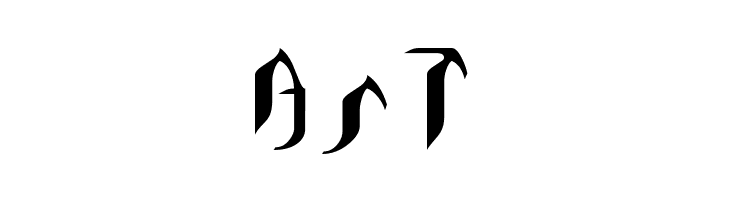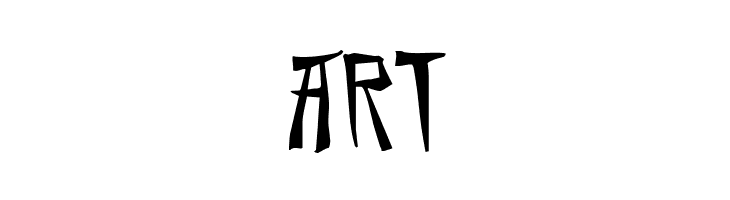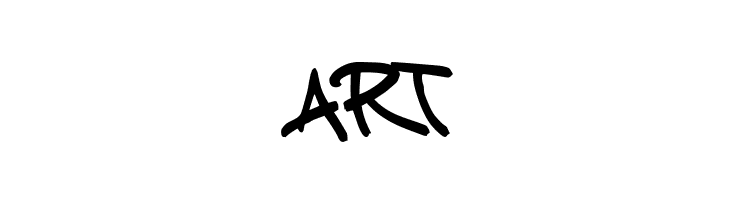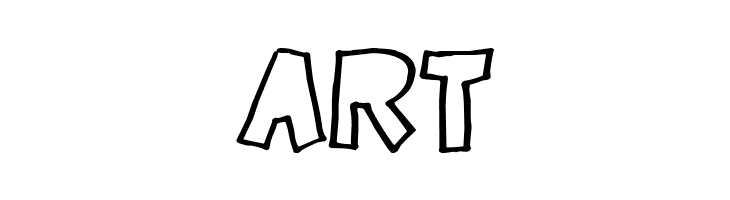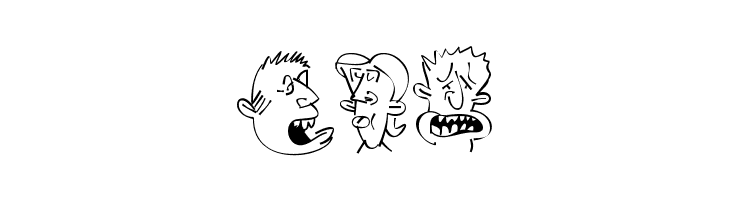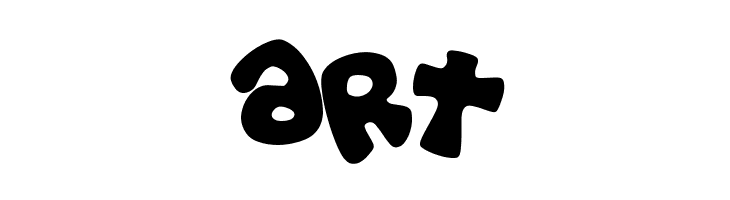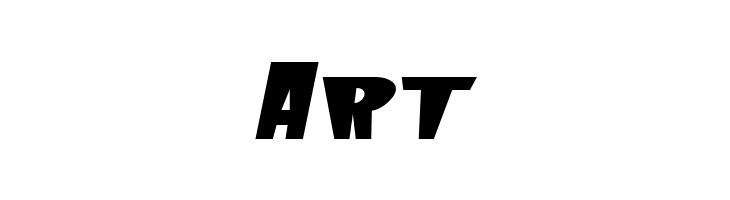
A bold, angular font with sharp lines and a distinctive, edgy style.
A playful, hand-drawn font with irregular curves and a whimsical style.
A bold, graffiti-inspired font with dynamic and energetic strokes.
A playful, hand-drawn font with bold outlines and a cartoonish style.
A bold, artistic serif font with sharp angles and smooth curves.
A playful, bold font with a whimsical, hand-drawn style and rounded, irregular shapes.
A bold, dynamic font with sharp angles and a playful, energetic feel.